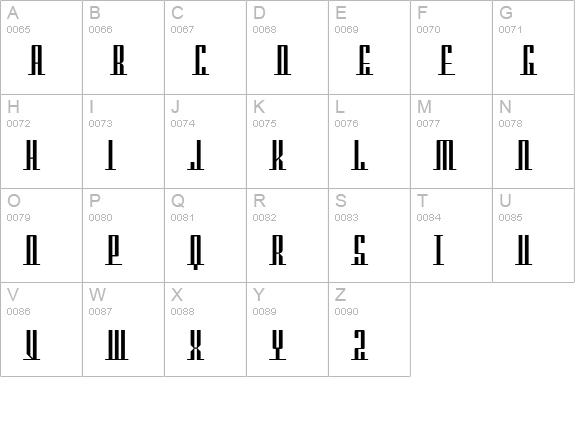
SF Americana Dreams SC Upright Font Details
SF Americana Dreams SC Upright is a captivating font that will transport you to the heart of America's dreams. With its bold yet elegant design, this font captures the essence of American nostalgia and the spirit of a bygone era. Its unique upright style adds a touch of sophistication, making it perfect for a variety of design projects. The letters of SF Americana Dreams SC Upright are meticulously crafted, with each stroke carefully placed to create a harmonious balance. The clean lines and sharp edges give this font a modern twist, while still paying homage to the classic Americana style. This font is versatile and can be used for a wide range of applications. Whether you're designing a logo, creating a vintage-inspired poster, or adding a touch of Americana to your website, SF Americana Dreams SC Upright will bring your designs to life. One of the best things about SF Americana Dreams SC Upright is that it is free to download at FontsMarket.com. Yes, you read that right - this stunning font is freely available for you to use in your personal and commercial projects. So why wait? Head over to FontsMarket.com and start adding a touch of Americana to your designs with SF Americana Dreams SC Upright.